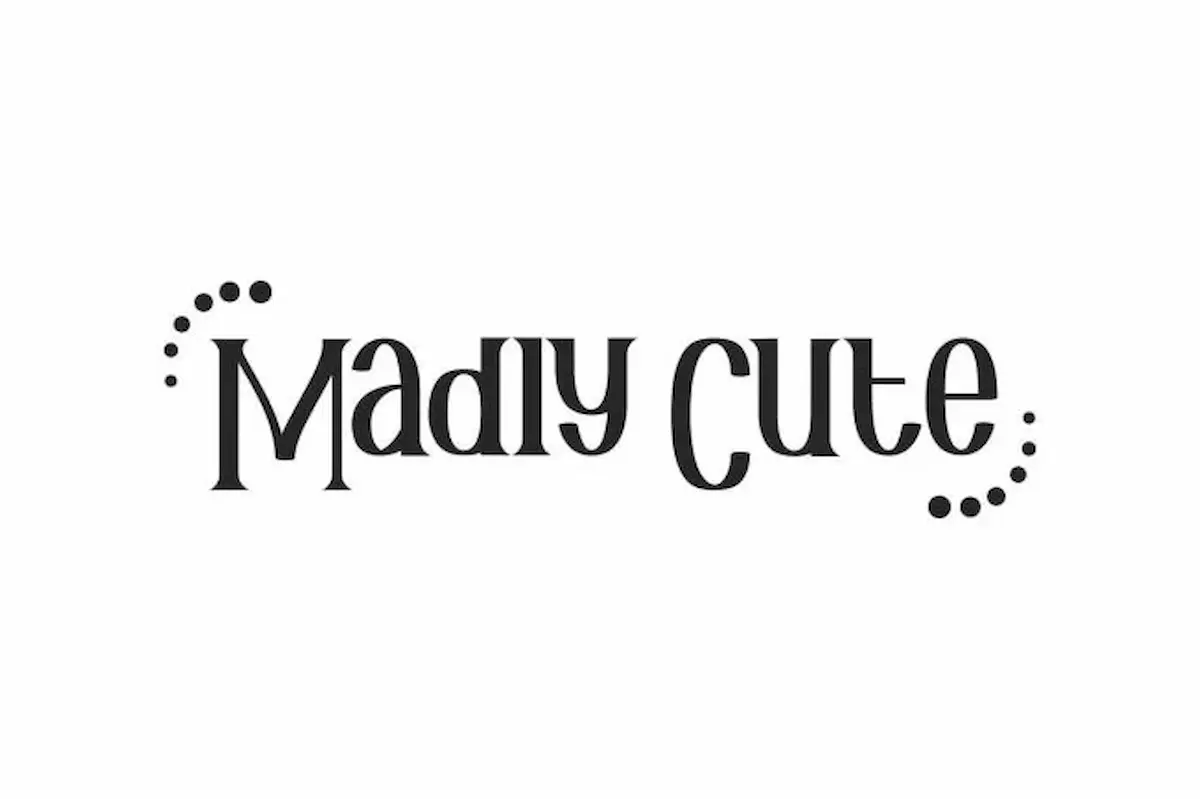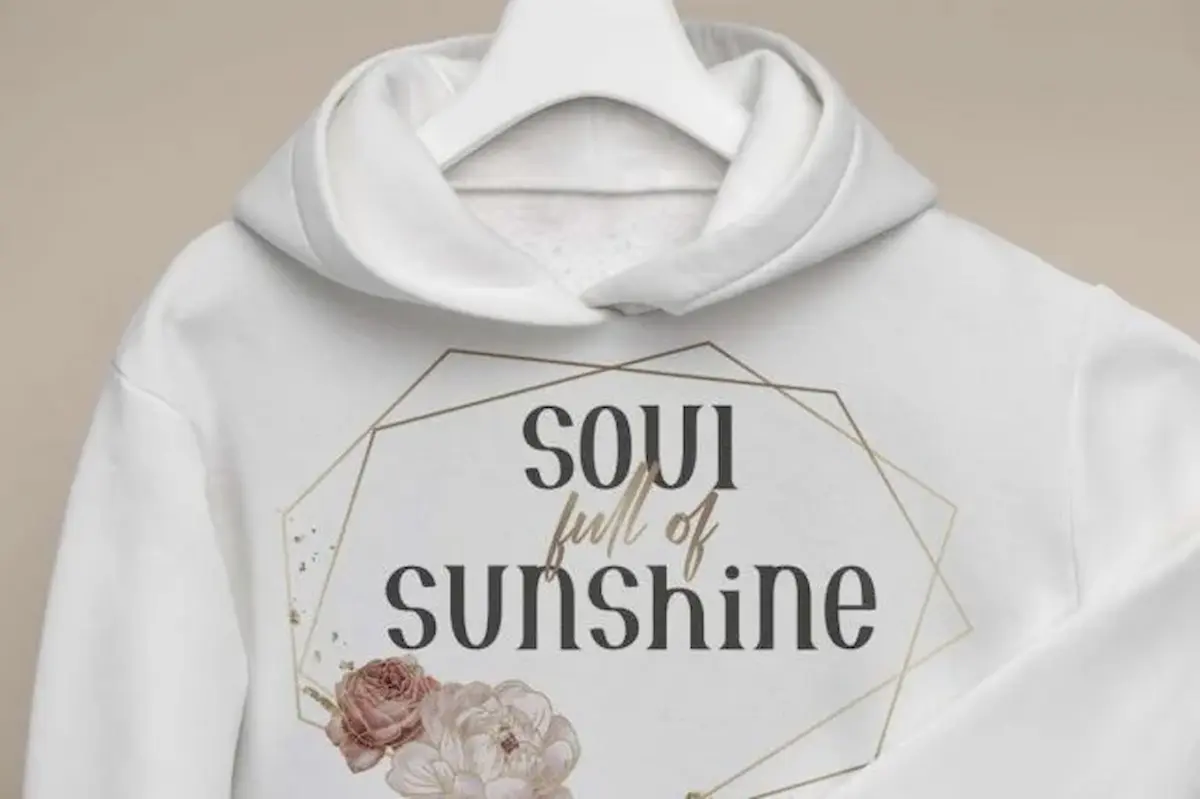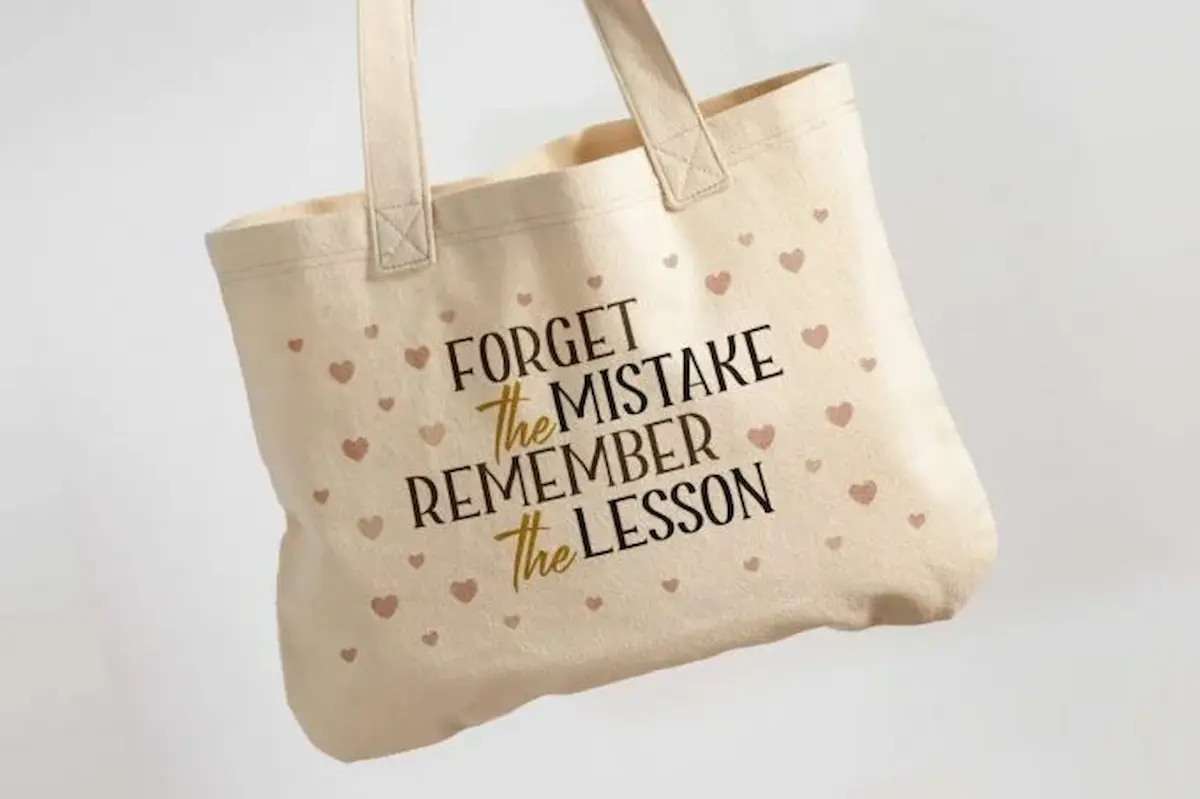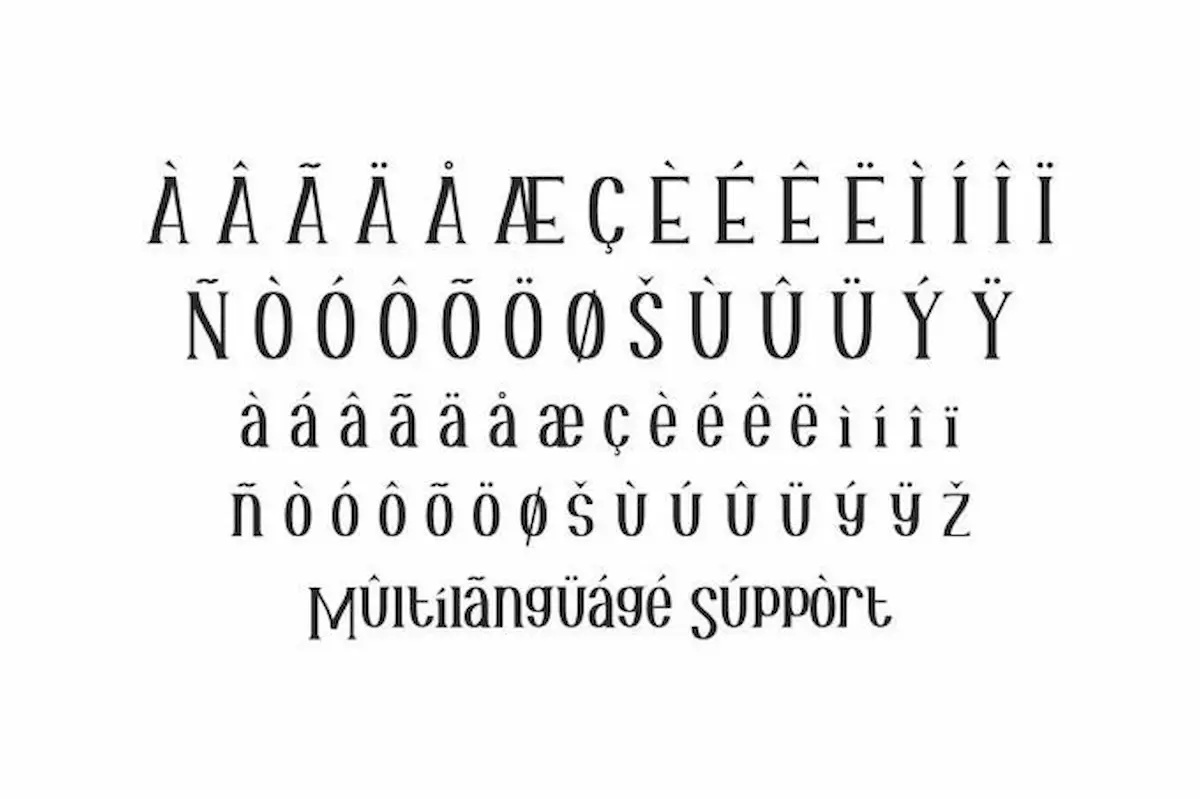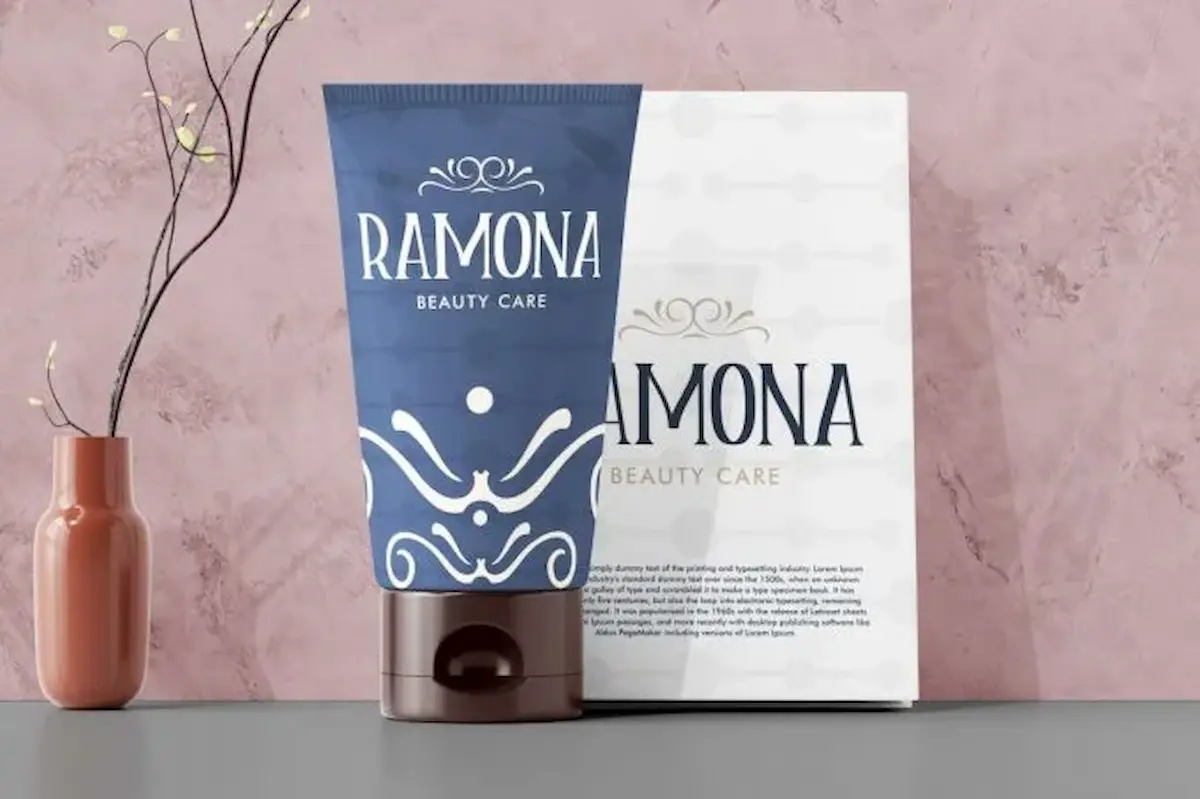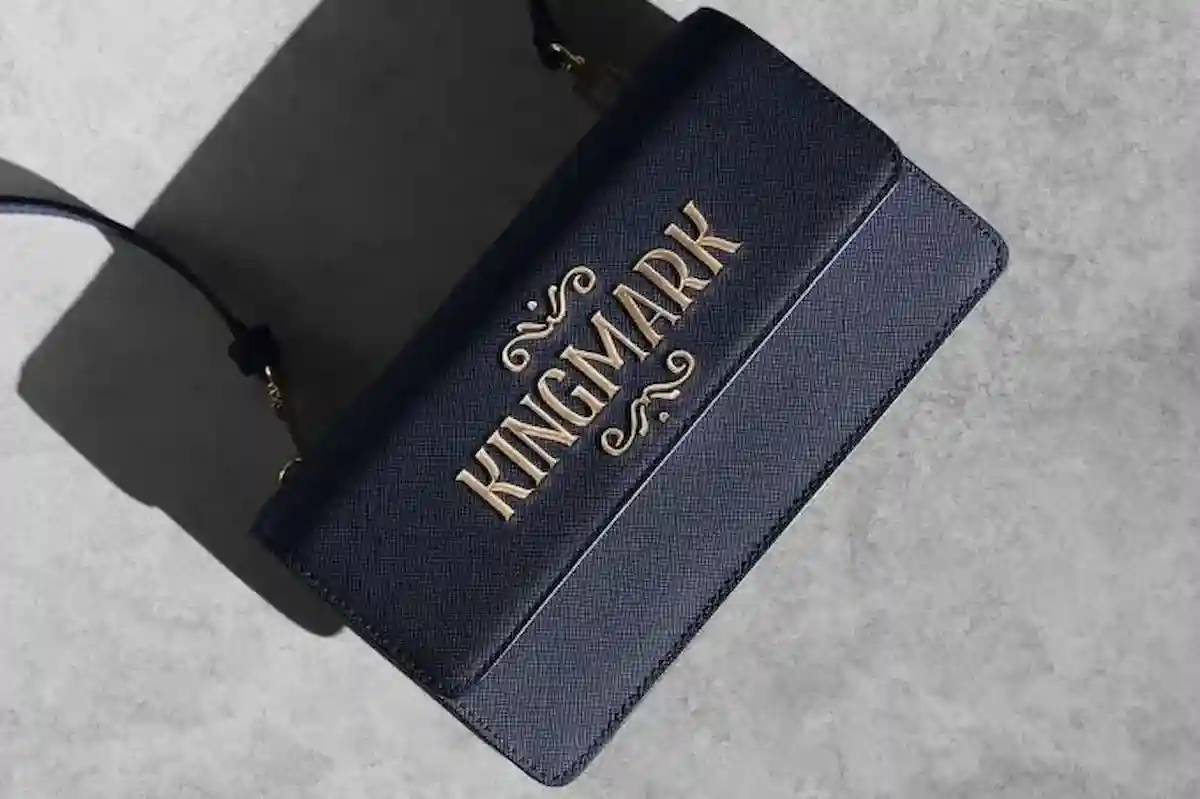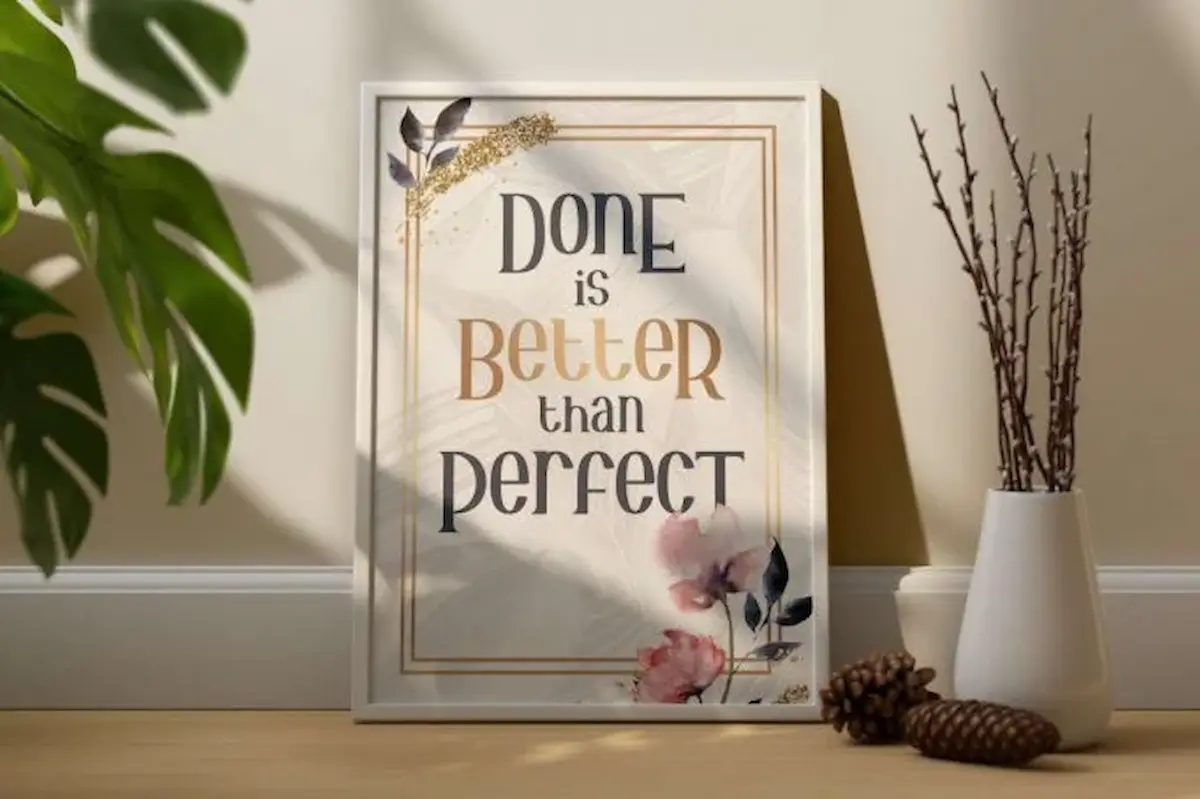
Madly Cute Font is a serif display font which uses swoosh to make the letters aesthetic. These fonts are ideal for adding a chic and elegant touch to your crafts. Perfect for fashion brand, logo, invitation, title, and more!
Madly Cute Font is a modern and luxurious serif font that has a swoosh with royal themed ornamentation. This typeface is suitable for all brand identity needs, cosmetic brand, fashion, invitation card, magazine design, screen printing business, and more. This font looks gorgeous and suitable for glamour style that making anything stand out.
Madly Cute Font is a serif display font with an elegant shape and unique characters also suitable for art quote, blog header, craft design, any DIY project, logo design, modern stationery design, wedding event, title, typography, or any purpose to make your art or design project looks trendy.
Madly Cute Font includes full set of Uppercase and lowercase Basic Characters, Numbers, Punctuation, and also Swoosh. This font comes with Multilingual Support, accessible in Adobe Illustrator, Adobe Photoshop, Microsoft Word etc. It’s PUA encoded it means you can access all characters through Windows and Mac and also fully accessible without any additional design software.